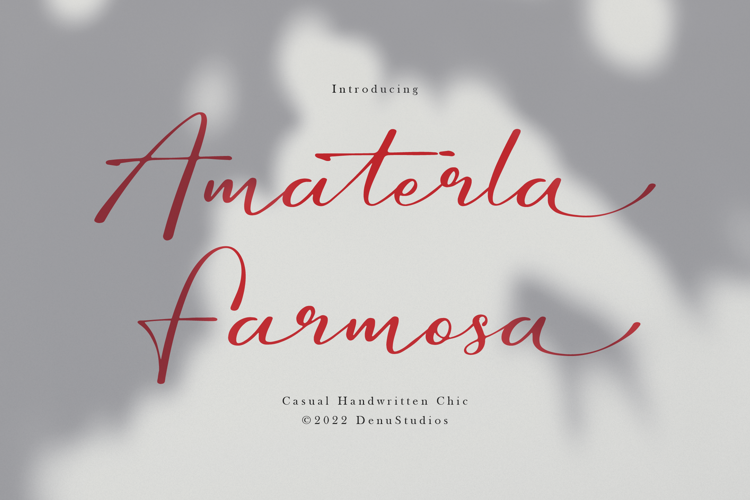
Amaterla Farmosa Font
Amaterla Farmosa | Casual Handwritten Chic product packaging, mugs, quotes, posters, shopping bags, t-shirts, book covers, name card, invitation cards, greeting cards, label, photography, watermark, special events, and all your other lovely projects that need a Script taste.